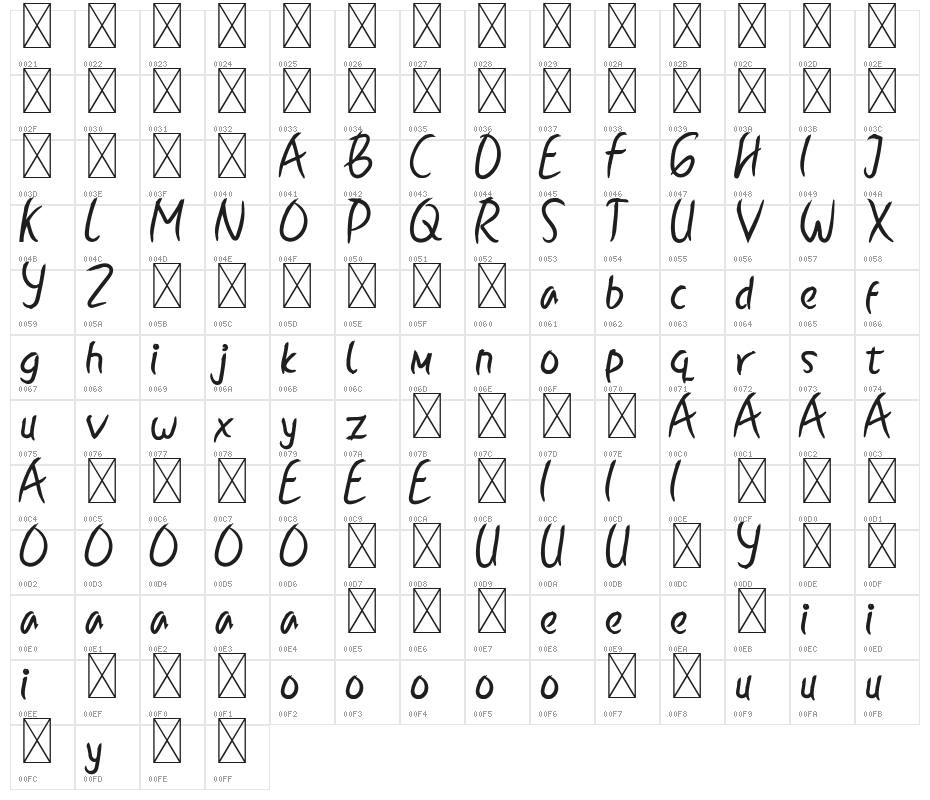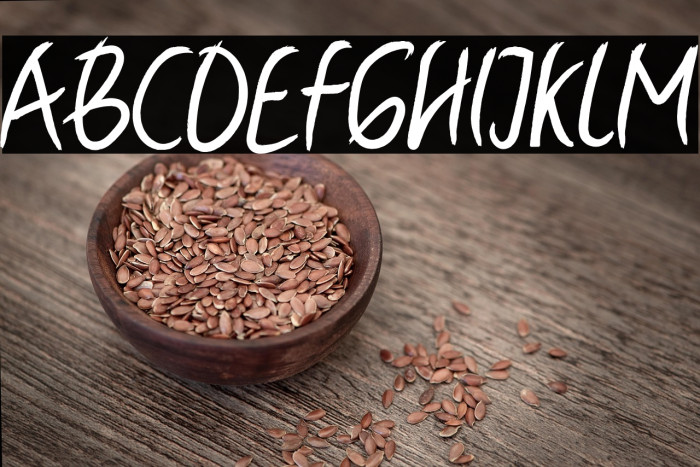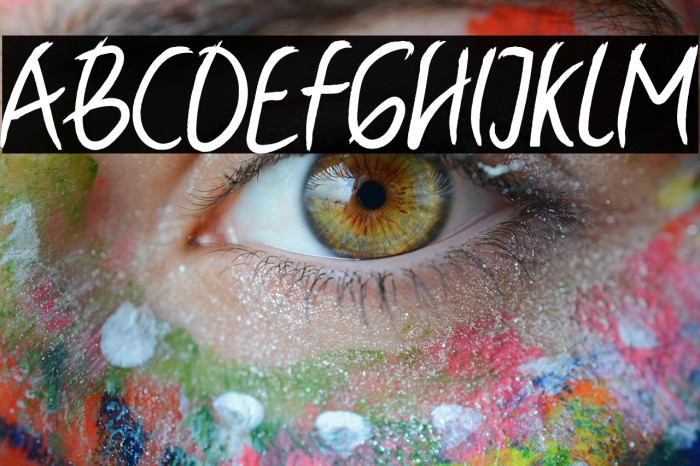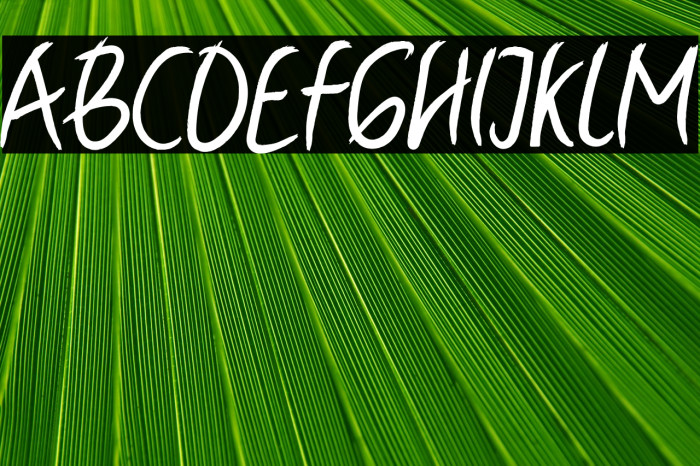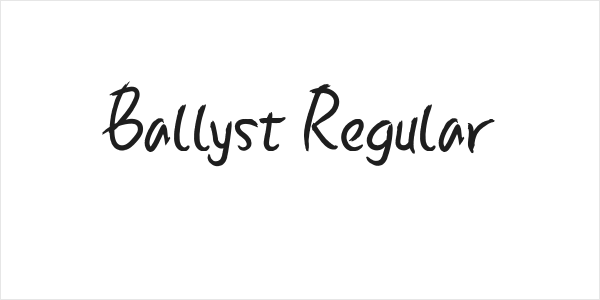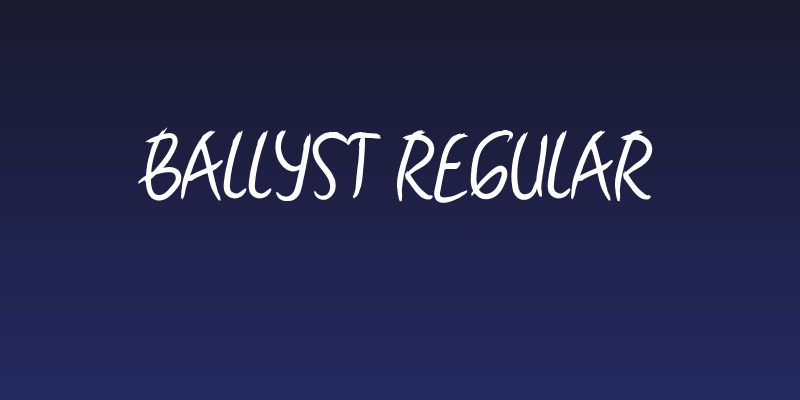
Ballyst Regular Font
Ballyst Regular Description
This font features a dynamic and energetic handwritten style, characterized by its fluid and slightly irregular strokes. The uppercase letters are bold and expressive, with a noticeable slant that adds a sense of movement. The lowercase letters maintain a consistent style, offering a playful yet legible appearance. The overall design is informal and artistic, making it suitable for creative projects. The characters are well-spaced, ensuring readability while maintaining the font's unique flair. This font is ideal for projects that require a personal touch or a casual, friendly vibe.
| Proposed Projects | Ideal for greeting cards, invitations, personal branding, and artistic posters. |